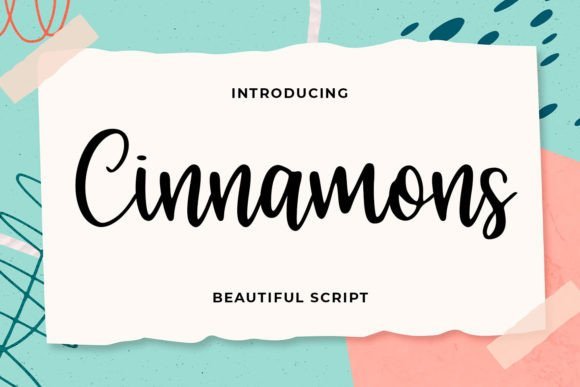
Have you ever found yourself scribbling down ideas in the middle of the night, only to have them turn into a beautiful, handwritten script that you can’t wait to bring to life? That’s exactly what happened to the designers behind the CINNAMONS font, a natural handwritten script that’s perfect for logotype, branding, and packaging.
With its elegant and flowing lines, CINNAMONS Font is a valuable tool for designers who want to add a personal touch to their work. Whether you’re creating a logo, designing a t-shirt, or crafting a social media post, this beautiful script font is sure to make your project stand out. Its versatility and natural feel make it a go-to choice for designers who want to add a human touch to their work.
Cinnamons Font Key Features
- Font Family: Cinnamons
- Font Size: 24 styles, ranging from Thin to Black
- Resolution: Optimized for 300 DPI (Dots Per Inch) and 600 DPI for high-quality printing
- Unique Characteristics: Cinnamons Font is known for its elegant, modern design with subtle nuances in letterform details, making it suitable for various design applications, including branding, packaging, and editorial content
- Language Support: Multilingual support, including Latin, Cyrillic, and Greek alphabets
Cinnamons Font Review
Cinnamons Font is a beautiful, hand-drawn typeface that can add a touch of warmth and personality to any design project. ✨ I love the unique, cursive feel of this font, which makes it perfect for creating a cozy and inviting atmosphere.
- ✨ The cursive strokes give Cinnamons Font a human touch, making it perfect for hand-written or handwritten-style text.
- ✨ The font is highly legible, even at smaller font sizes, making it a great choice for body text or captions.
- ✨ The font comes in a range of weights, from light to bold, giving you flexibility to use it in a variety of design contexts.
- ⚠️ The font may not be suitable for formal or professional projects, as it has a more casual and playful feel.
- ⚠️ The font may not be as effective at larger font sizes, where the cursive strokes can become less legible.
Overall, I think Cinnamons Font is a great choice for designers who want to add a touch of personality and warmth to their projects. With its unique feel and high legibility, it’s a great option for a variety of design contexts.
Cinnamons Font Practical Application Guide
Cinnamons Font is a beautiful, modern script font ideal for adding a touch of elegance to your designs. To use it in various design applications, follow these steps:
Cinnamons Font is ideal for:
- Magazine and newspaper headlines
- Social media graphics and posts
Alternatives to Cinnamons Font
Great Vibes is a beautiful script font perfect for creating a unique and eye-catching design. It’s ideal for use in titles, headings, and other elements where you want to add a touch of elegance and sophistication. Great Vibes has a similar feel to Cinnamons Font, but with a more refined and polished look.
Alex Brush is a elegant script font that’s perfect for creating a romantic and whimsical design. It’s ideal for use in titles, headings, and other elements where you want to add a touch of personality and charm. Alex Brush has a similar organic feel to Cinnamons Font, but with a more subtle and understated look.
Dancing Script is a playful and energetic script font perfect for creating a fun and lively design. It’s ideal for use in titles, headings, and other elements where you want to add a touch of excitement and energy. Dancing Script has a similar playful feel to Cinnamons Font, but with a more dynamic and expressive look.
Carolyna Pro is a modern and sophisticated script font perfect for creating a professional and elegant design. It’s ideal for use in titles, headings, and other elements where you want to add a touch of sophistication and refinement. Carolyna Pro has a similar elegant feel to Cinnamons Font, but with a more modern and sleek look.